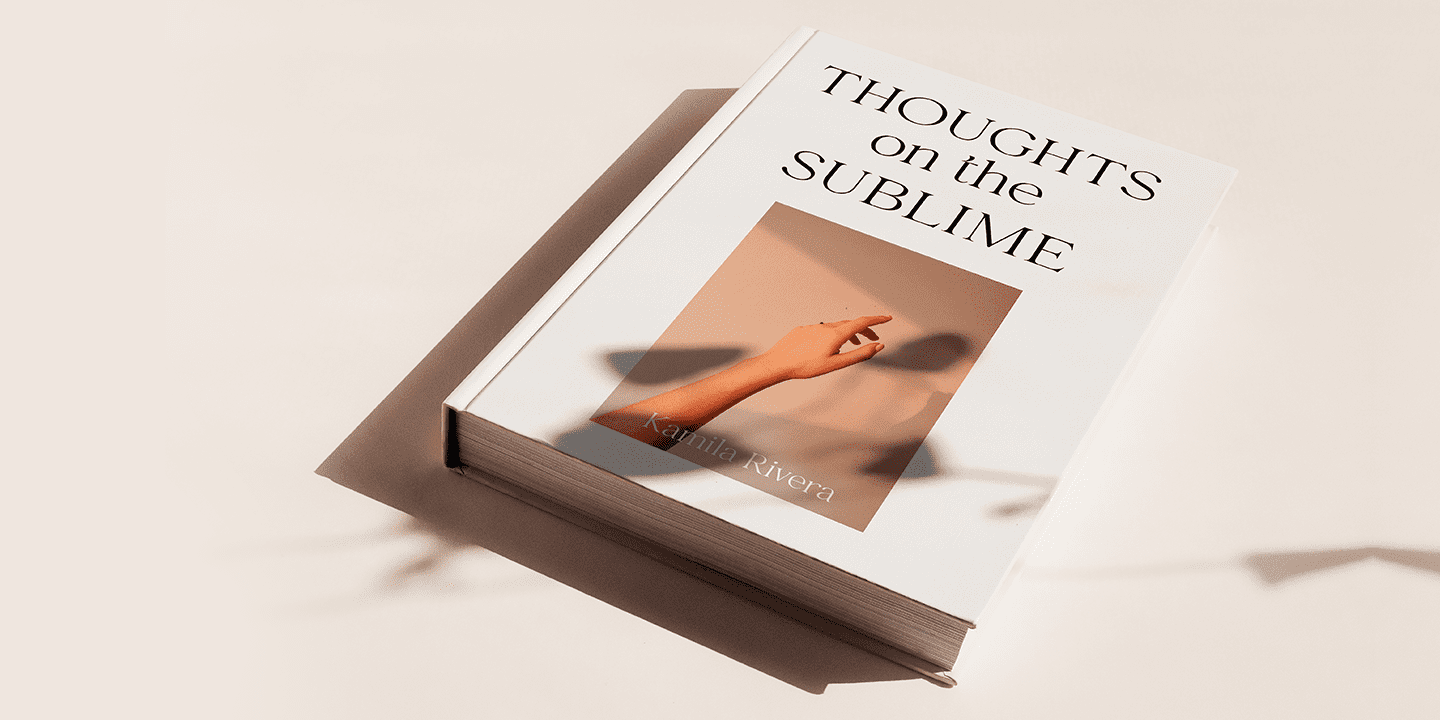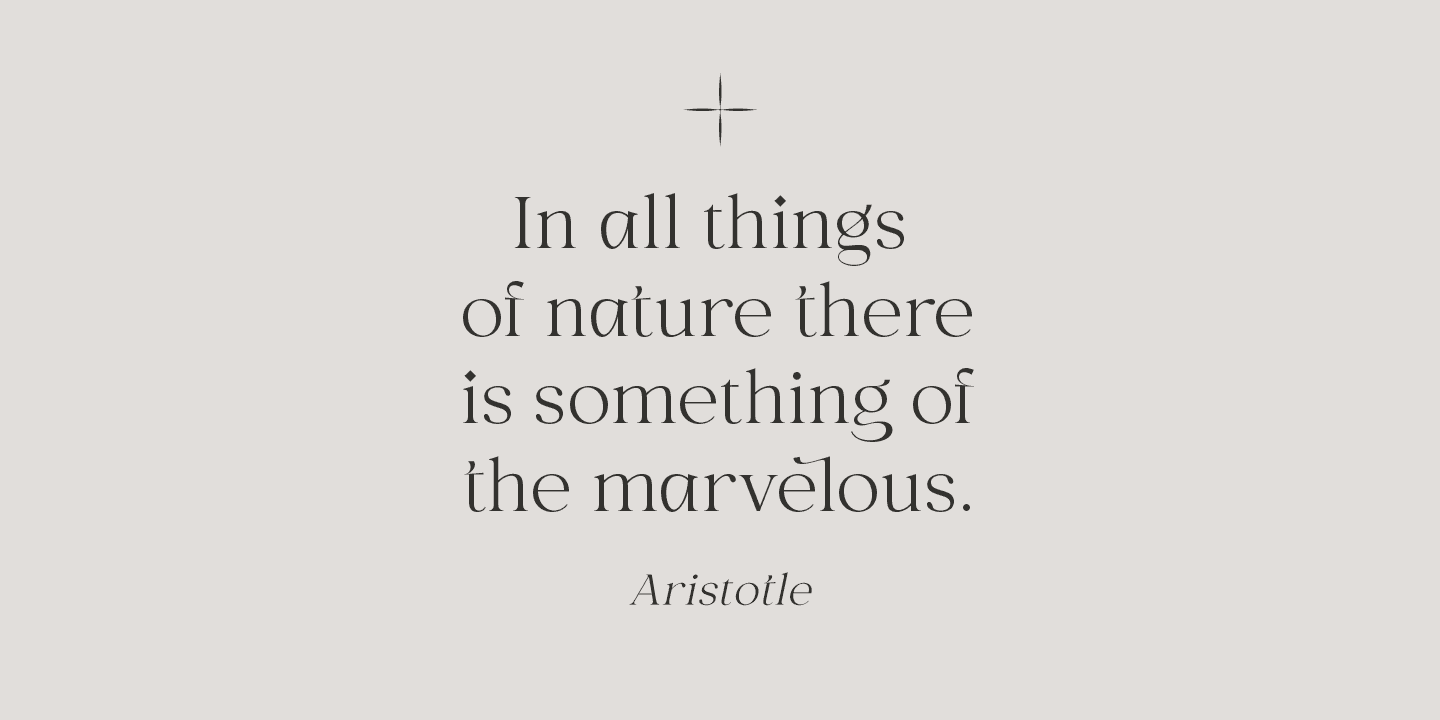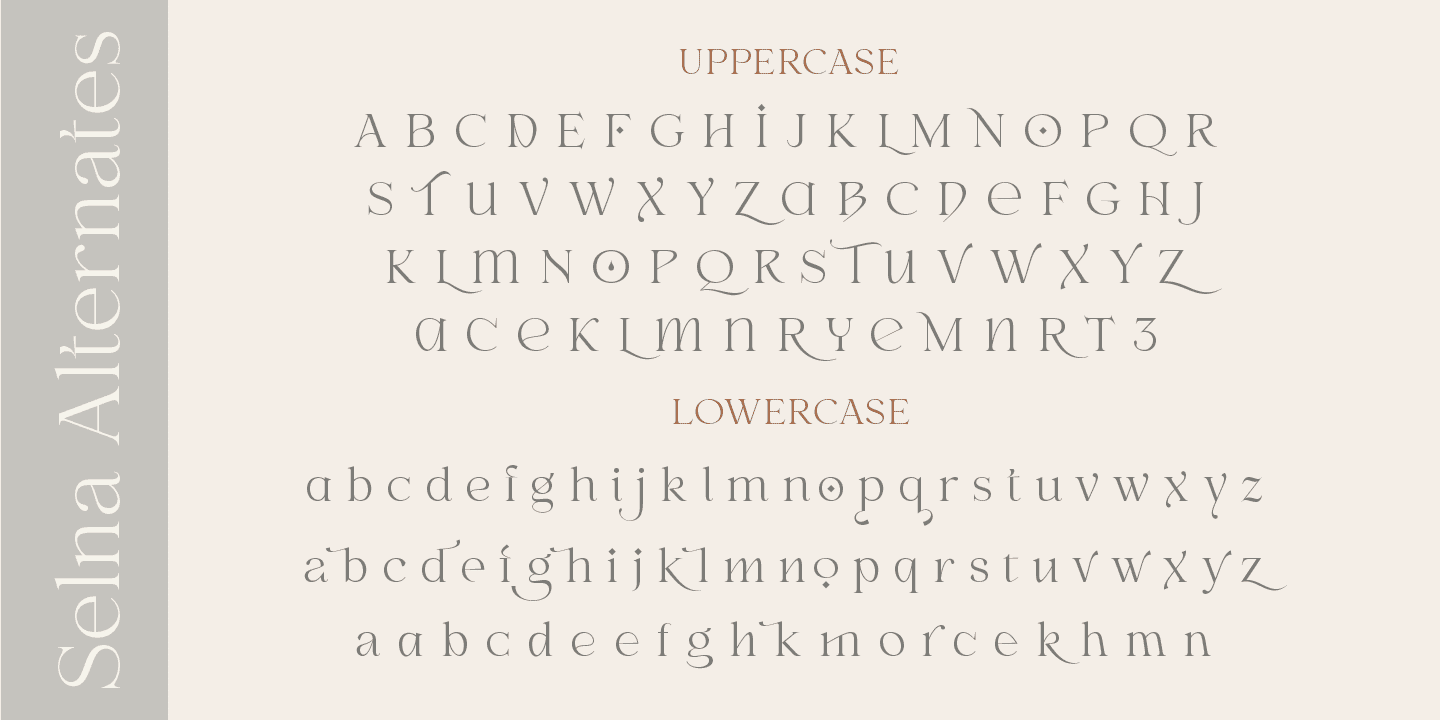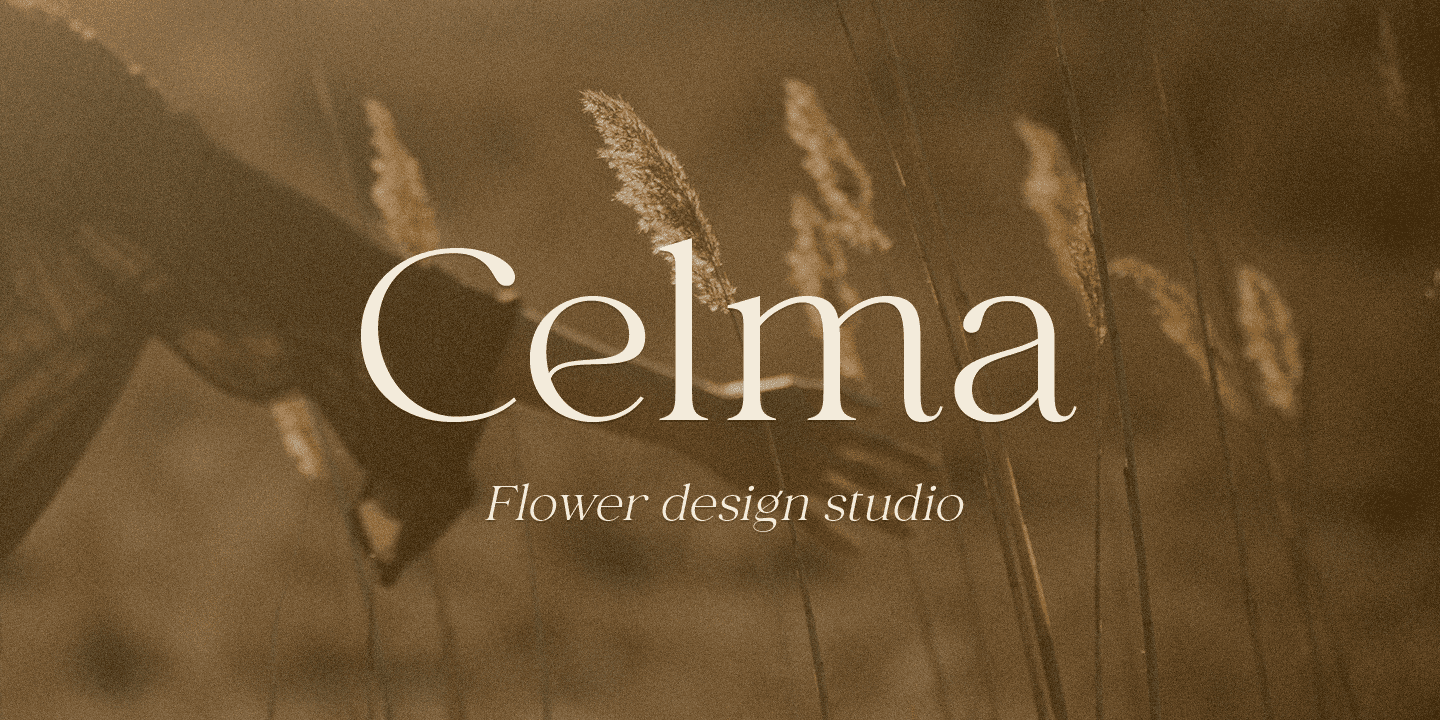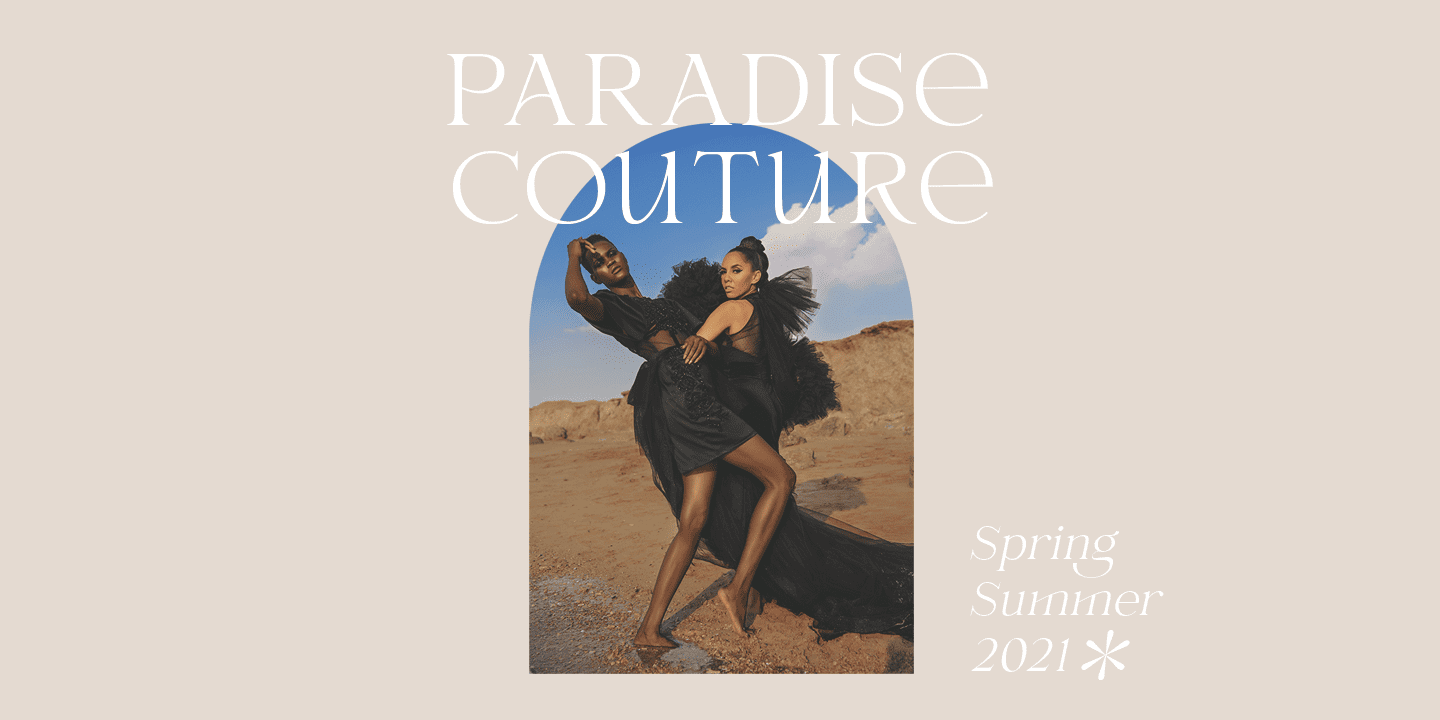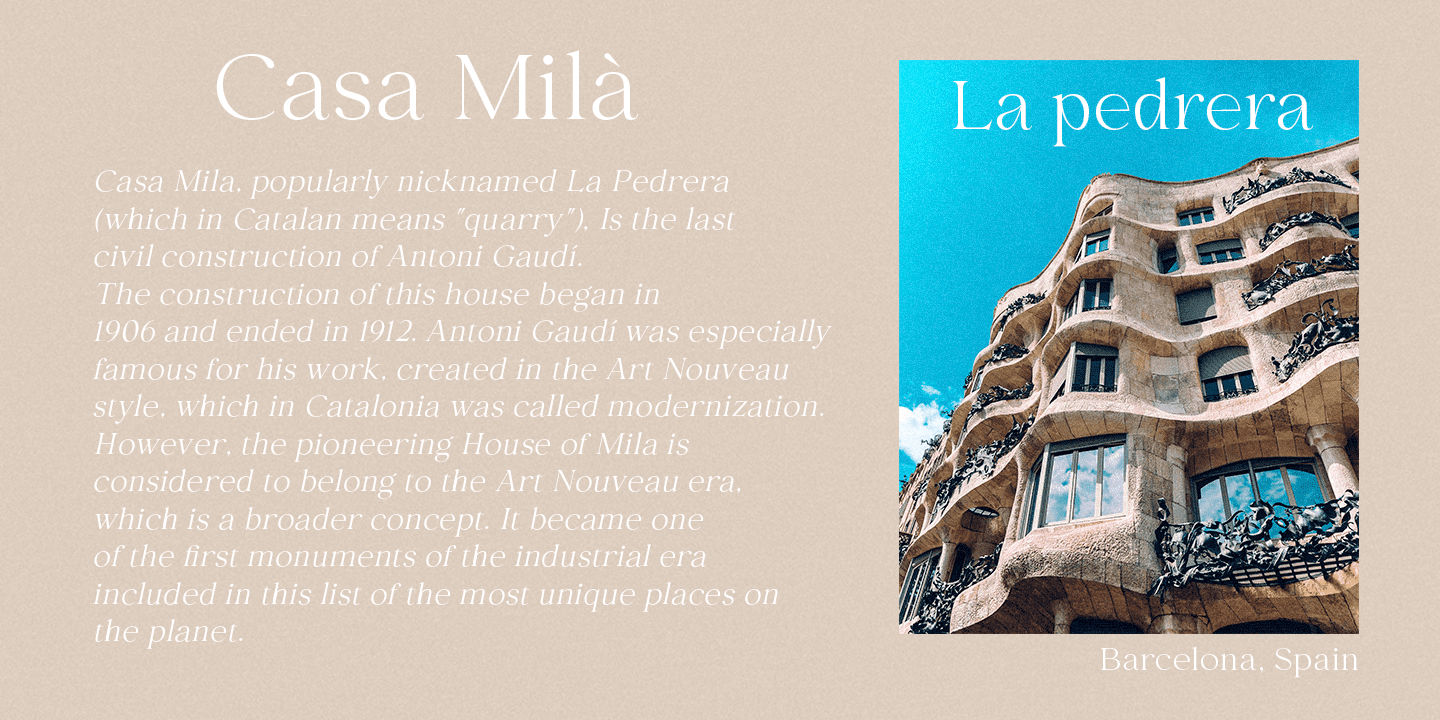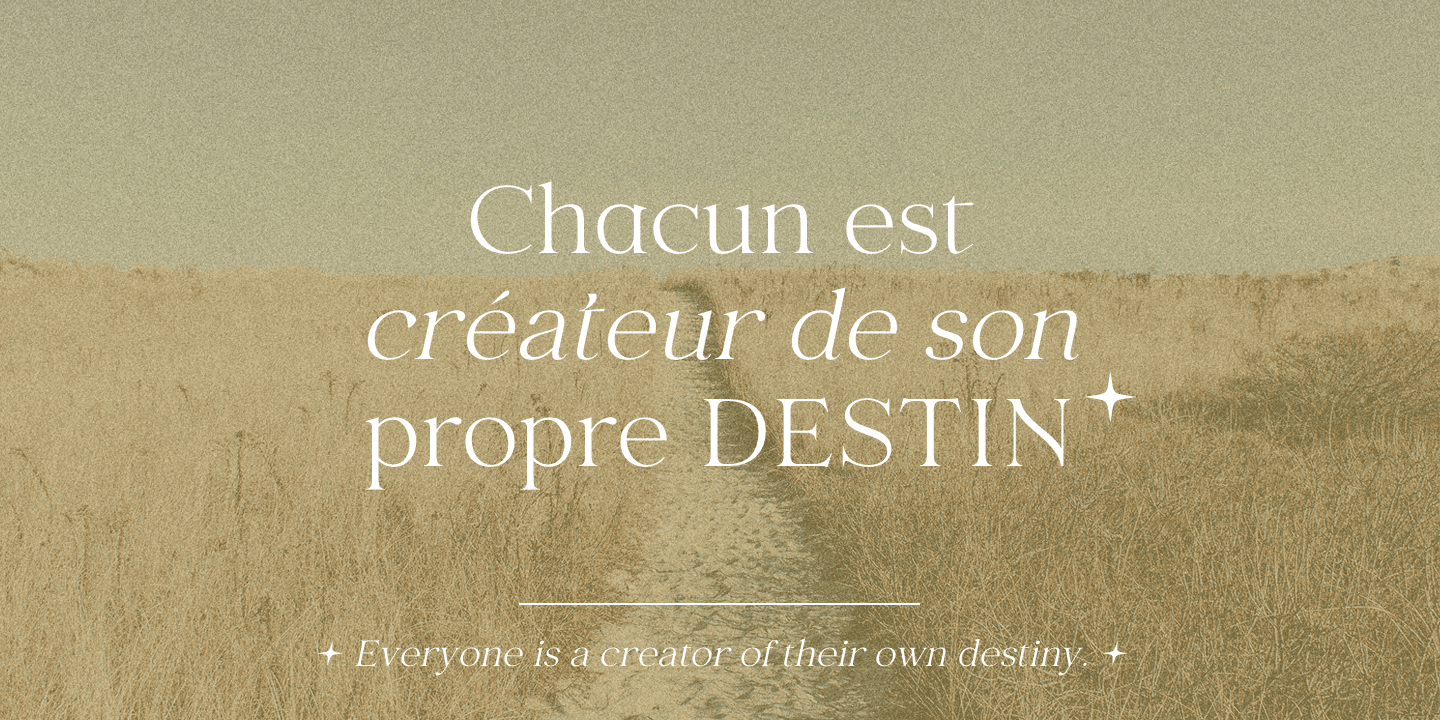
Selna Family (4 fonts)
This font has a light weight and looks amazing in logos, branding, arranging wedding invitations, business cards, packaging, titles and much more. It also is very readable and works great with text. Included in this font are many Uppercase and Lowercase alternates which will make your design projects even more elegant and unique and the oblique styles will add even more dynamics to your design. This font is easy to use and has OpenType features.